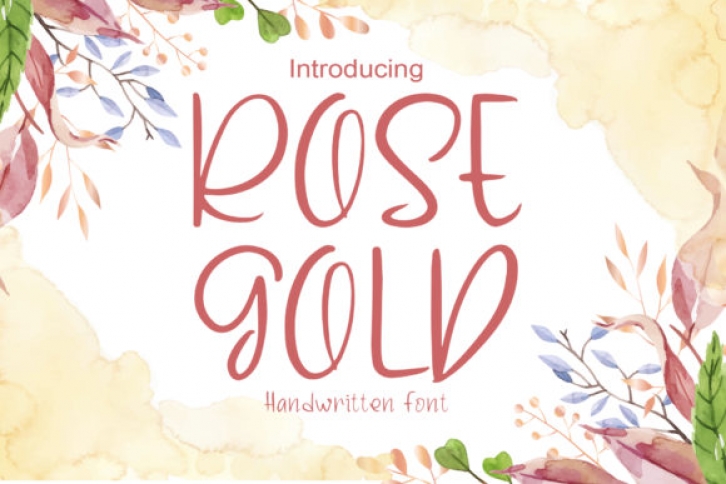
Rose Gold is a fun, trendy and relaxed handwritten font. This original look will appeal to a wide range of crafty ideas, from letterheads and titles, to stationery.